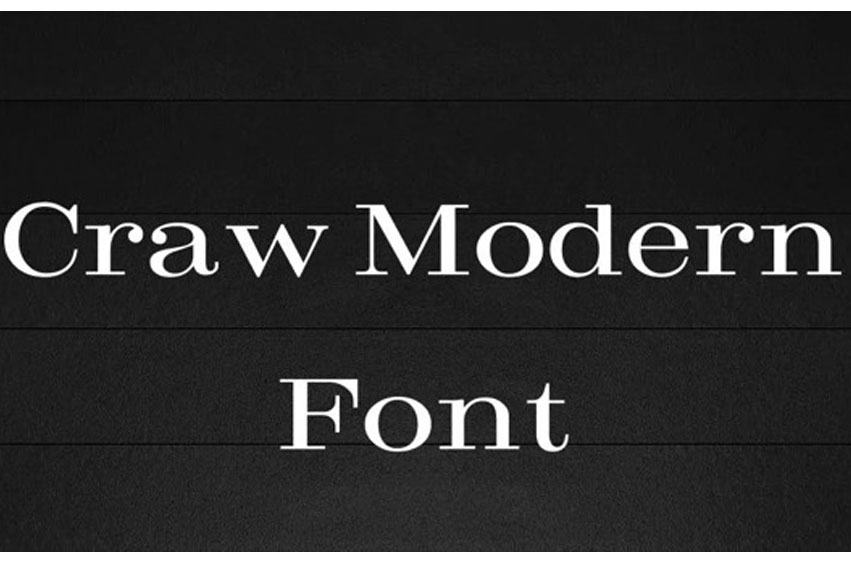
Craw Modern Font
Craw Modern Font is an elegant and classy serif font family that was designed by Freeman Craw and published by URW Type Foundry. It contains 3 styles and family package options.